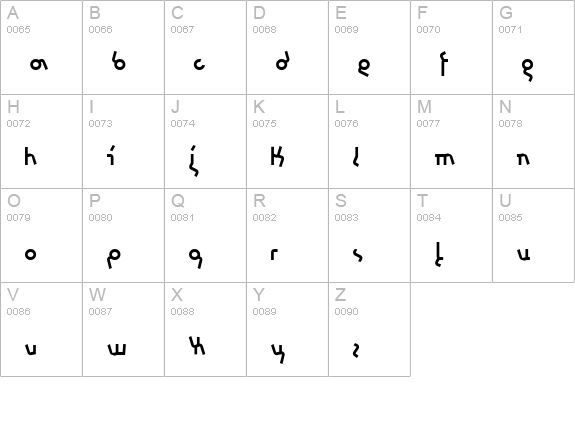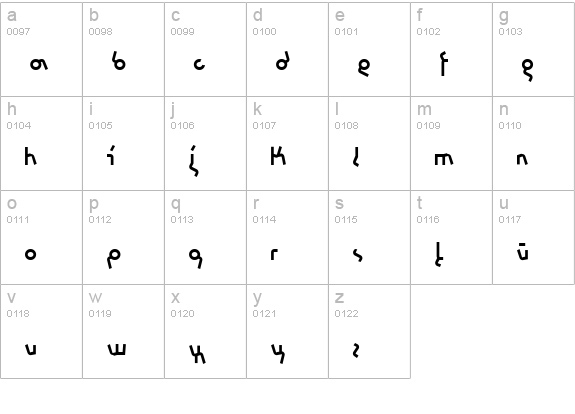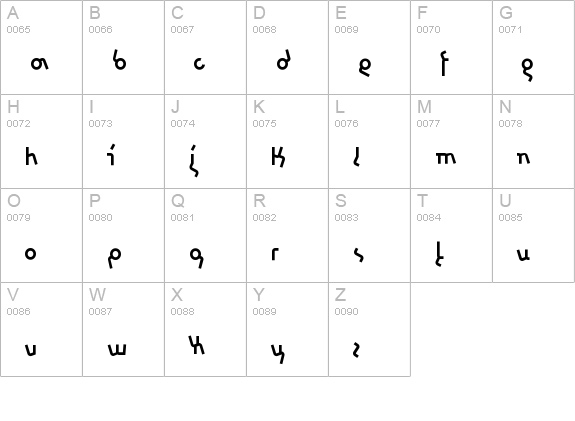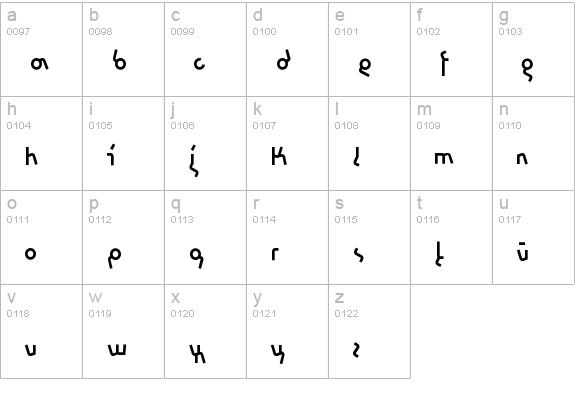
chromosome Normal is the standard, neutral variant in the chromosome typeface family \xE2\x80\x94 well suited to general body text, paragraphs, and standard typographic work.
Chromosome Normal font is a versatile typeface that exudes elegance and modernity. With its clean lines and balanced proportions, this font is perfect for a wide range of design projects. Whether you're creating a sleek logo, designing a professional presentation, or crafting a sophisticated invitation, Chromosome Normal font will add a touch of sophistication to your work. The best part? Chromosome Normal font is available for free download at FontsMarket.com. Simply visit the website to access this stylish font and elevate your designs with its timeless appeal. Don't miss out on the opportunity to enhance your projects with the sophistication of Chromosome Normal font – download it today!